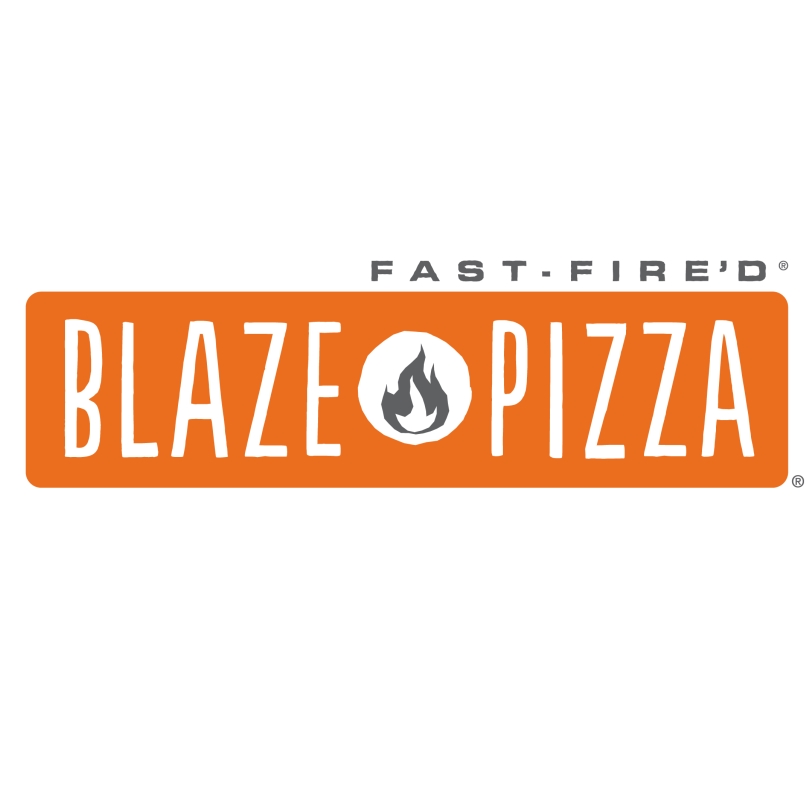
Blaze Pizza Font
Fonts in UseBlaze Pizza is a fast-casual pizza restaurant chain founded in 2011. They offer build-your-own pizzas with a variety of toppings and have over 300 locations worldwide.
Blaze Pizza's logo uses Populaire font, by PintassilgoPrints, inspired by Atelier Populaire's posters in May 1968. The A and E in the logo differ but are available as alternate letters in the font.